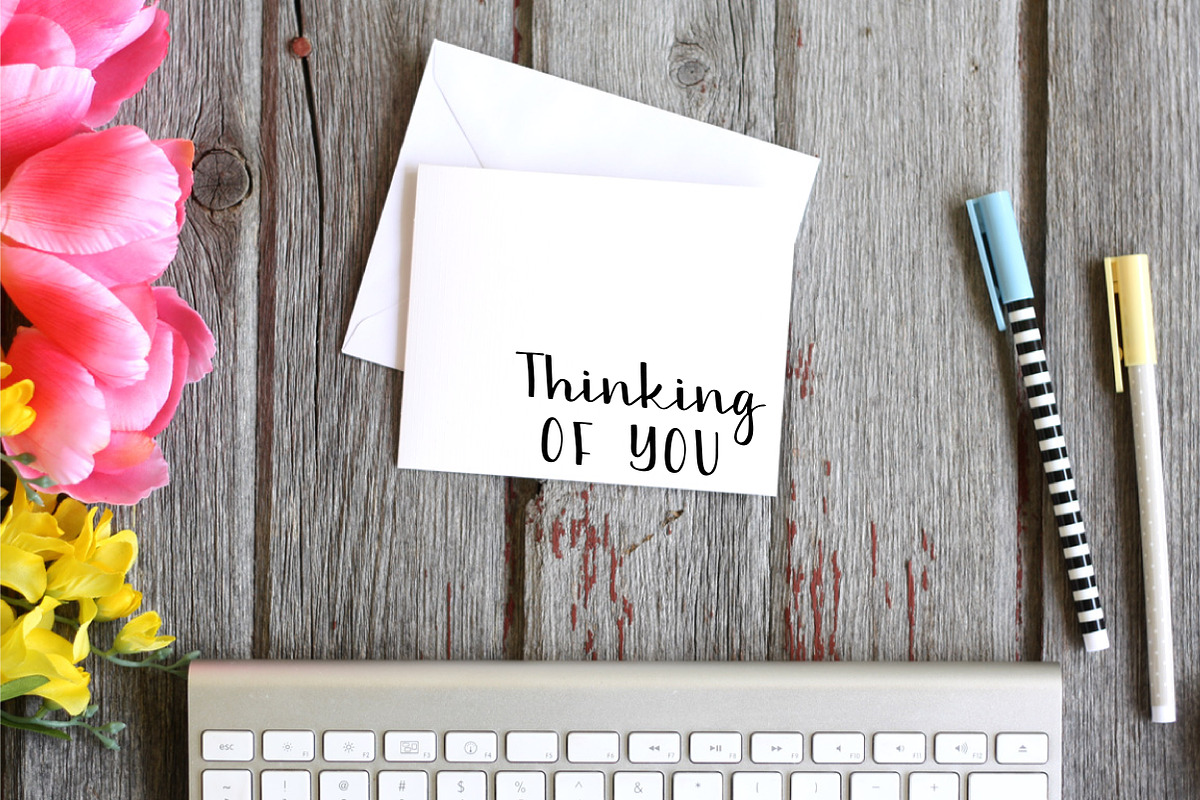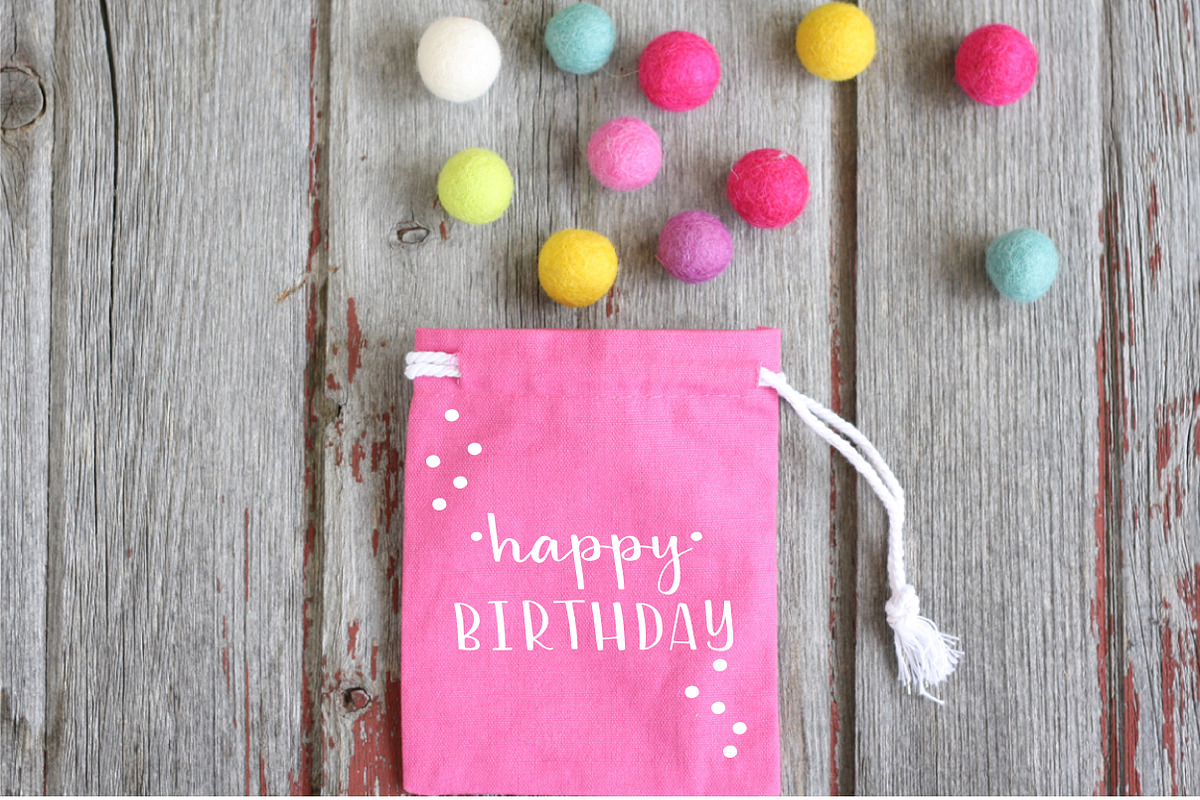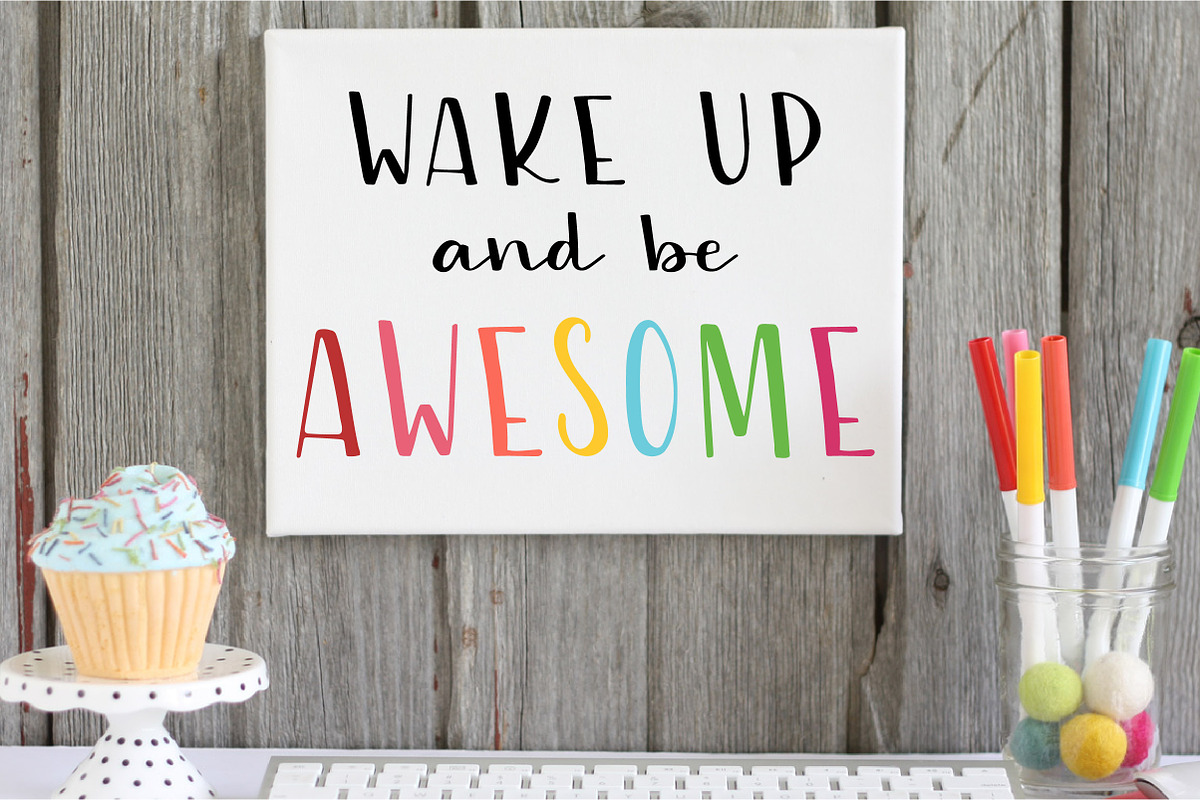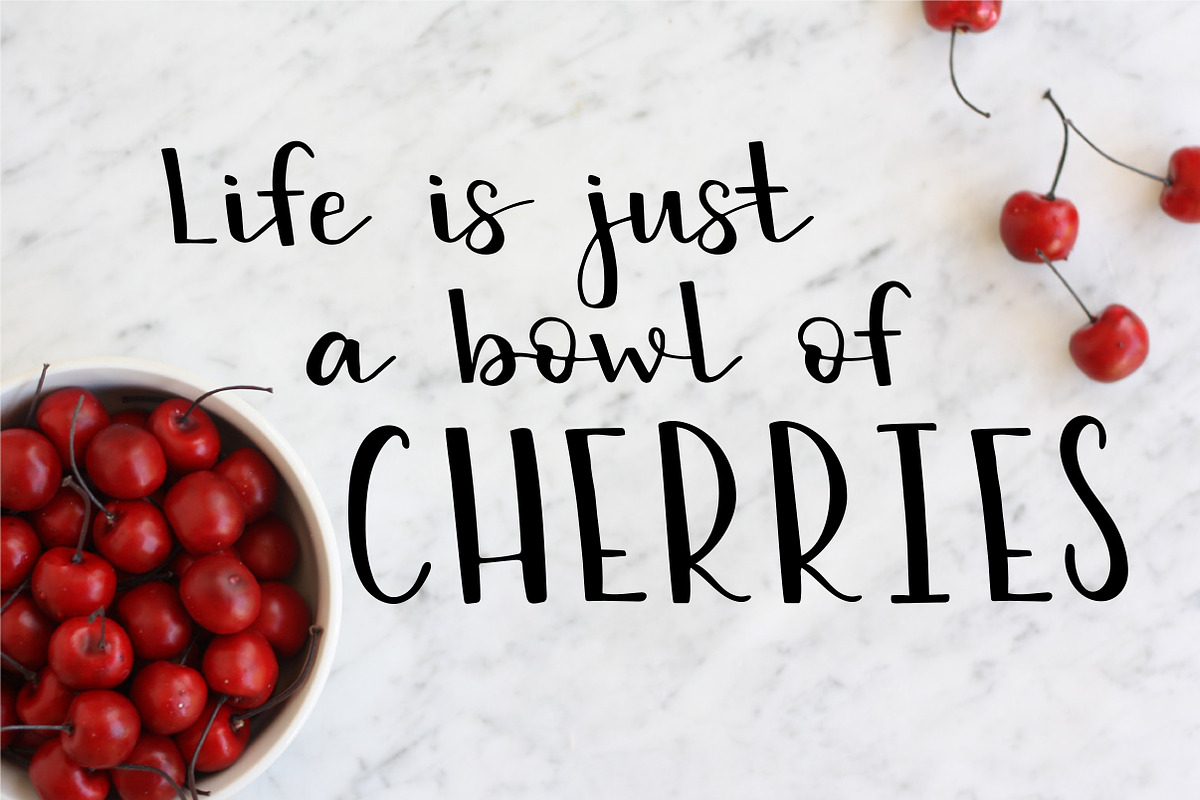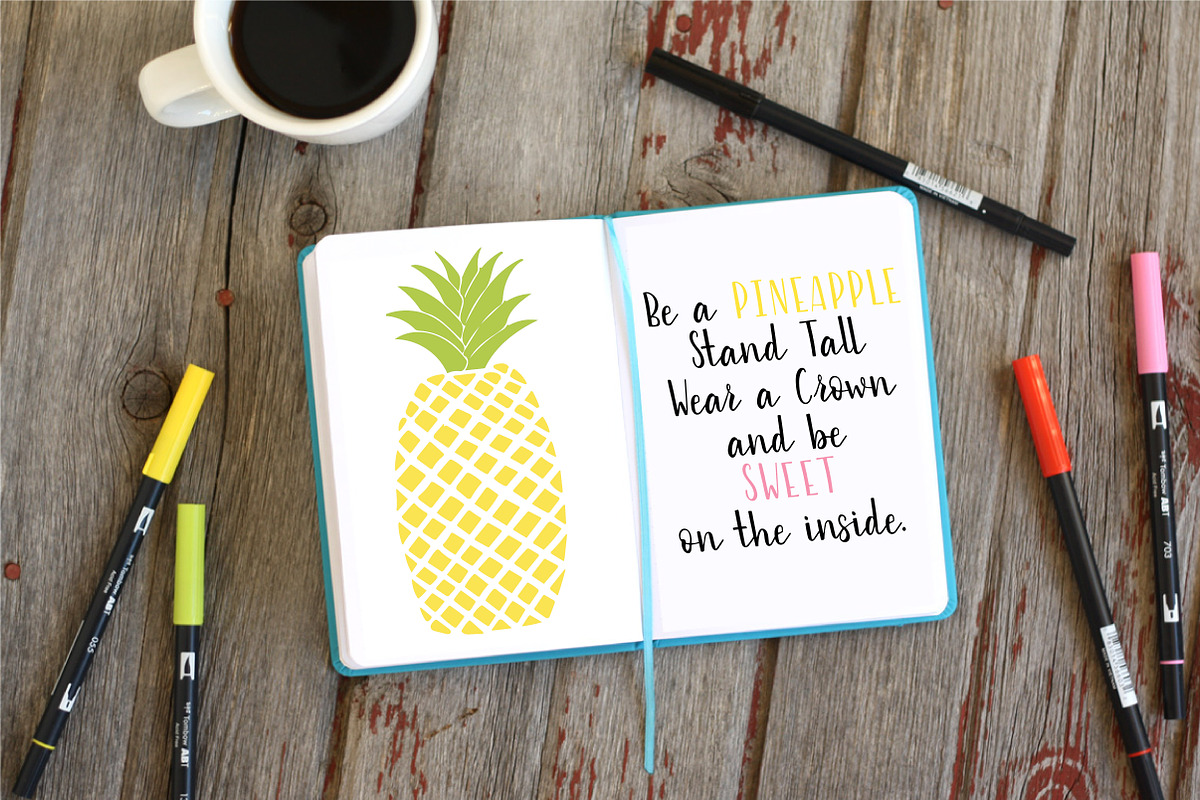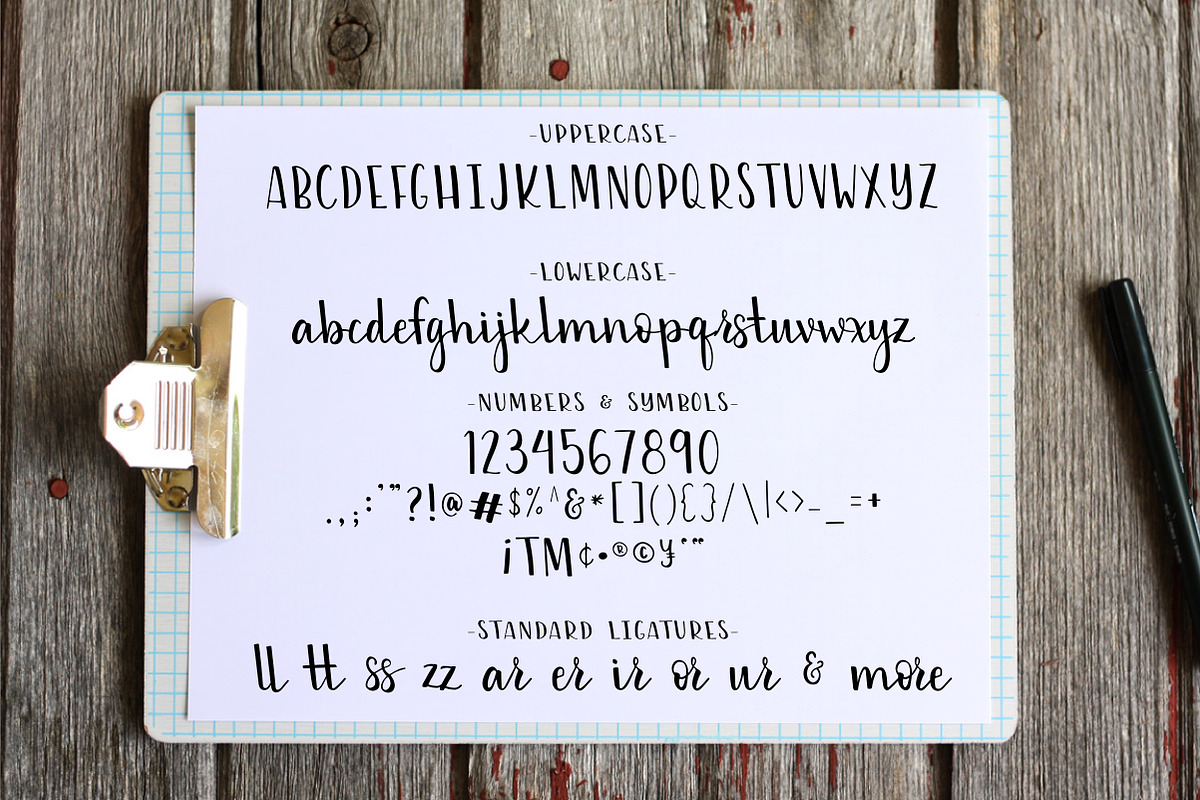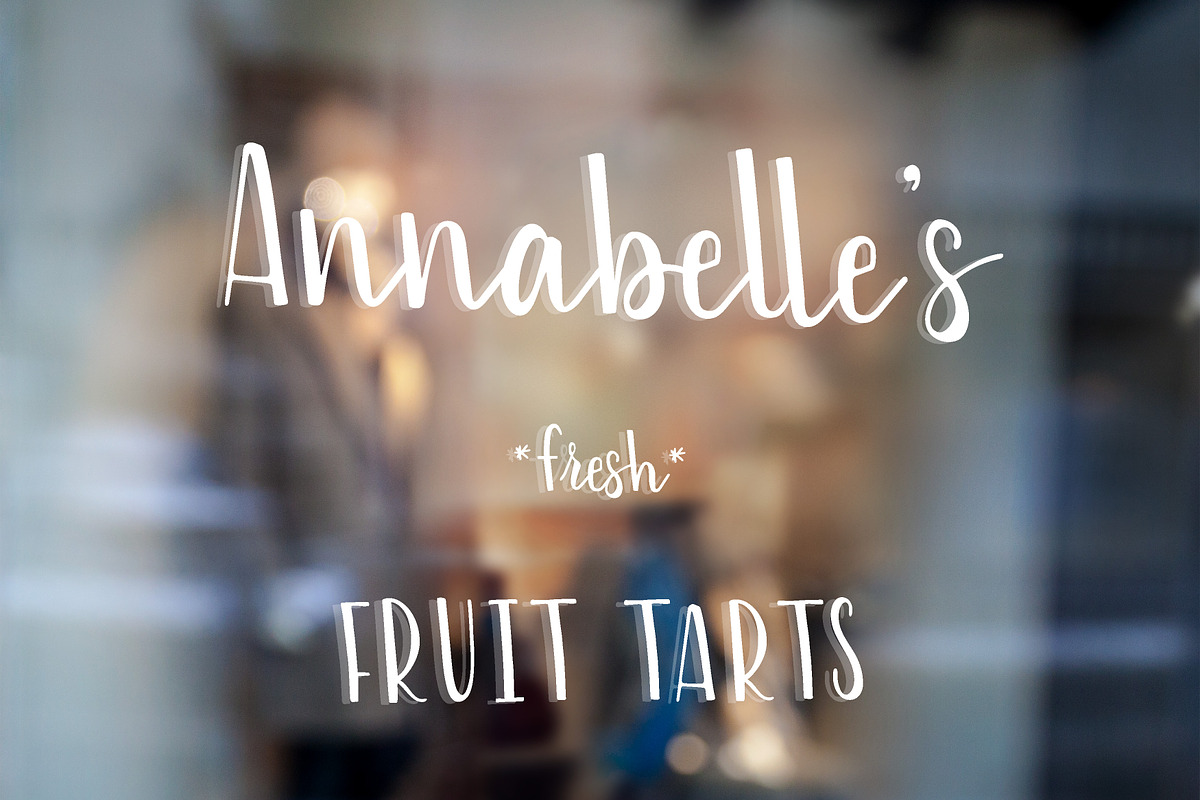
Slightly Sweet Hand Lettered Font
Slightly Sweet Hand Lettered Font by Liz on Call is a font selected for branding, posters, packaging, typography.
- What's included in the Slightly Sweet font: A Sans Serif uppercase Cap style font, A lowercase handwritten script font, complete symbols and
Why Slightly Sweet Hand Lettered Font is worth a look
Slightly Sweet Hand Lettered Font by Liz on Call fits naturally into Branding, posters, packaging, typography.